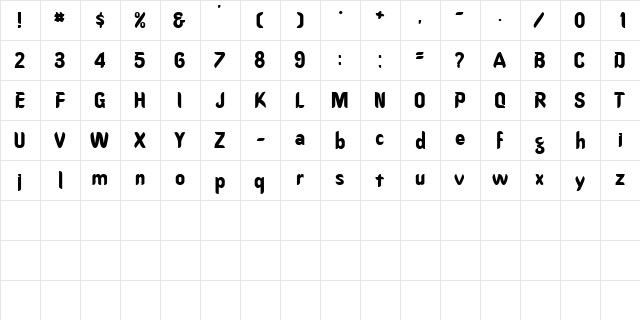
SmidgenSSK Regular
Design Context for SmidgenSSK Typeface
SmidgenSSK offers clean, dependable letterforms without strong stylistic allegiance, making it a practical choice for designers who need flexibility.